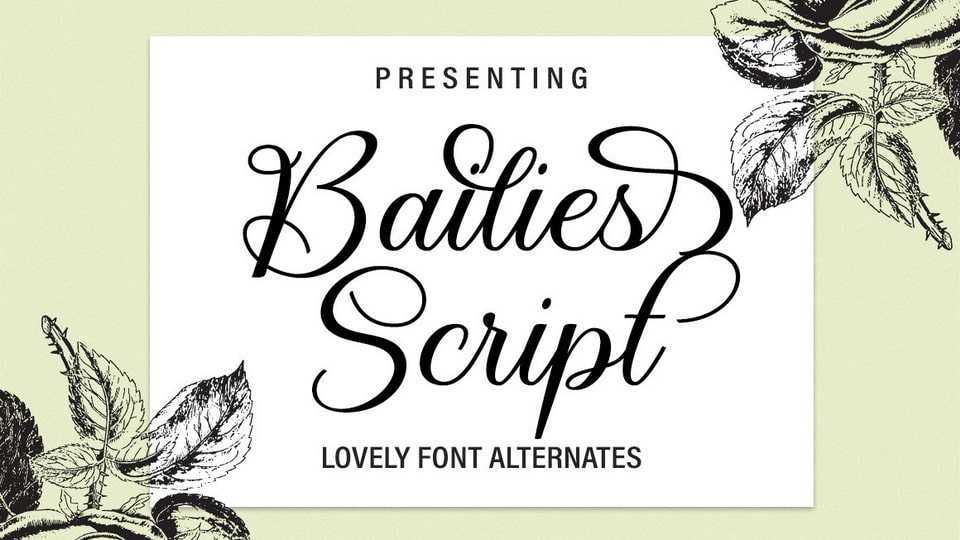
Download Bailies Script font, beautiful script typeface versatile enough for web and print and can be used in projects such as stationery, packaging, clothing, wedding stationery.